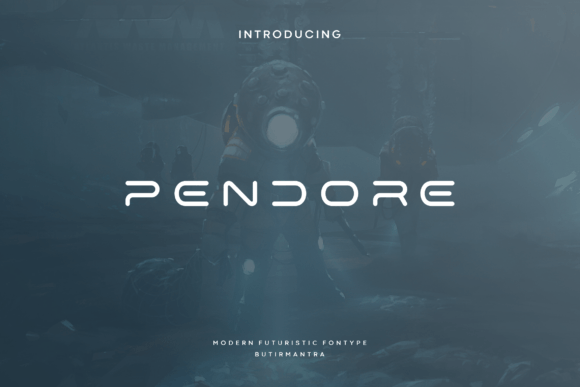
Feast your eyes on Pendore, the font that perfectly captures the essence of modern elegance and futuristic charm. Its sleek lines and sharp curves are a visual delight, guaranteed to leave a lasting impression on your audience. Whether you're a seasoned designer seeking a distinctive touch or a novice seeking to elevate your projects, Pendore is your font of choice.
Step into a world where creativity and professionalism unite, where your designs transcend the ordinary and embark on a journey of visual excellence. Pendore is a versatile wonder, seamlessly adapting to a myriad of projects. From the vibrant world of web design, where it weaves magic into every pixel, to the timeless realm of logos, where it instills a sense of identity and purpose. From the glossy pages of magazines, where it captivates readers with its allure, to the bold presence of posters, where it commands attention with its captivating presence. Pendore dances across business cards, leaving a lasting impression with every exchange. It's the ultimate font for those who dare to dream big and leave an indelible mark on the world of design.
Pendore, the brainchild of the talented garismantra, is a font that ignites imagination and fuels creativity. Its unique style is a testament to the boundless possibilities of digital artistry. Whether you're a seasoned designer seeking a masterpiece to elevate your projects or a beginner eager to make a statement, Pendore is your perfect companion.
As you venture into the realm of digital design, Pendore will guide you like a beacon of inspiration. Experience the joy of crafting logos that radiate sophistication, websites that exude elegance, and marketing materials that captivate audiences. With Pendore as your trusted ally, you'll unlock a world of creative possibilities, where your designs transcend the mundane and embrace the extraordinary.